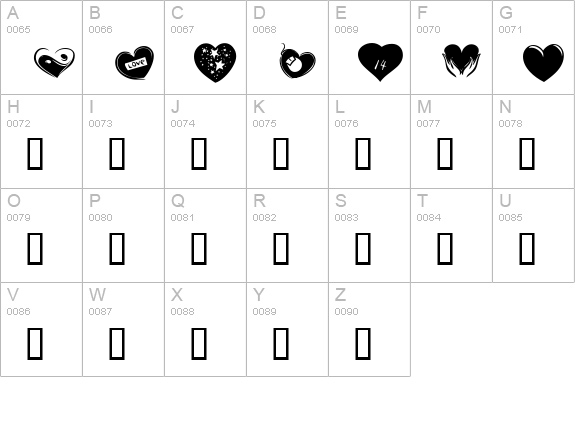
KR Valentines 2006 Six Font Details
KR Valentines 2006 Six font is a charming and whimsical typeface perfect for all your Valentine's Day projects. This lovely font features heart accents and a playful design that adds a touch of romance to any text. Whether you're creating love notes, greeting cards, or invitations, this font will surely capture the essence of the holiday. Best of all, KR Valentines 2006 Six font is completely free to download at FontsMarket.com. Simply visit the website and add this delightful font to your collection without spending a dime. Spread the love with this beautiful font and create heartfelt designs that will surely impress your loved ones. Download KR Valentines 2006 Six font today and let your creativity shine!